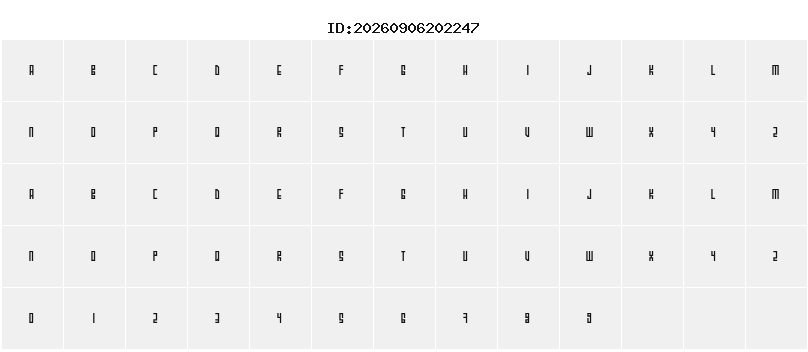
• Font Name: Uzbek Neue Luxation
• Full Font Name: Uzbek Neue Luxation Medium
• PostScript Name: UzbekNeueLuxation-Medium
About Uzbek Neue Luxation.ttf
Uzbek Neue Luxation.ttf is a modern, elegant sans-serif font designed for ultimate readability and visual harmony. Perfect for branding, headlines, web design, and print materials.